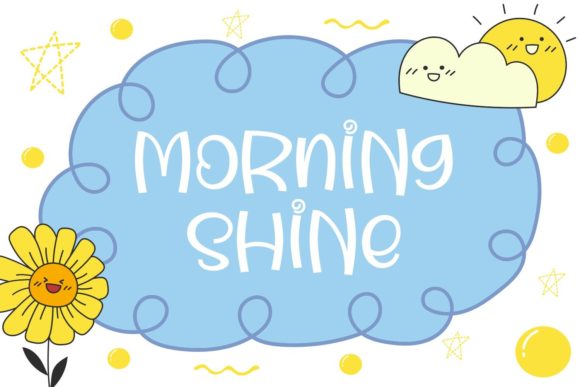
Dive into a world of captivating visual expression with Morning Shine Font, a display font family that exudes playfulness and whimsy. Designed by the creative mind of Rifki (7ntypes), this font is poised to elevate your branding projects to new heights of distinction.
With its unique and quirky letterforms, Morning Shine Font adds a touch of lighthearted charm to any design. Picture your logo adorned with its playful curves and sharp angles, commanding attention and leaving a lasting impression on your audience. Unleash your creativity and let Morning Shine Font transform your t-shirt designs into wearable works of art. Its bold and eye-catching characters will make your designs pop, ensuring they stand out from the crowd.
Morning Shine Font's versatility knows no bounds. Whether you're crafting creative products, designing packaging, or simply adding a dash of whimsy to your personal projects, this font is your perfect companion. Its distinctive style will lend a sense of playfulness and individuality to everything you create.
So, embrace the magic of Morning Shine Font and watch your creative vision come to life. Its extraordinary versatility and captivating aesthetics will make it your go-to choice for adding a touch of fun and flair to your designs. Experience the transformative power of Morning Shine Font today and embark on a journey of visual storytelling that will leave your audience captivated.